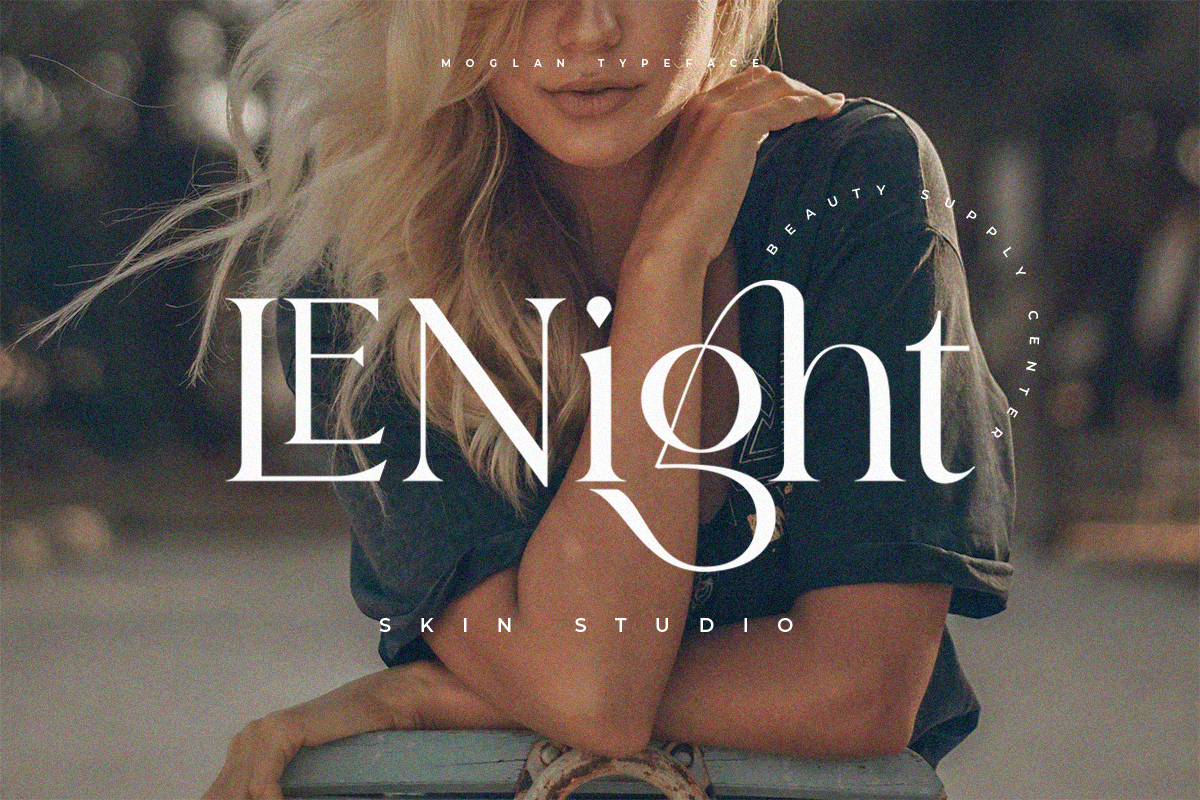
Moglan Font
Moglan Serif Font
This is an modern ligature serif font inspired by modern serif typeface. It looks great in all caps, lowercase, or intermixed! Perfect for branding, logo design, and marketing.